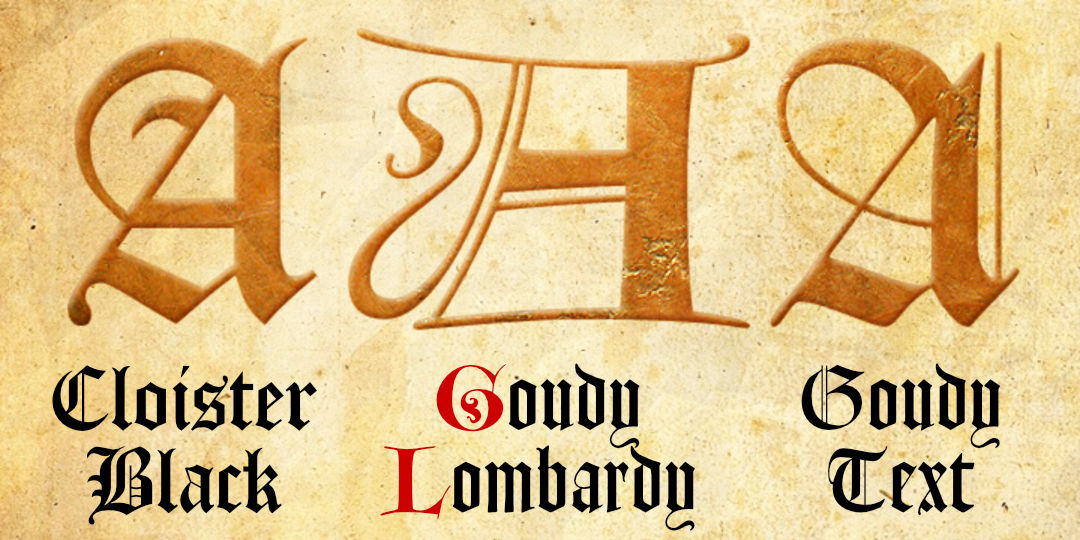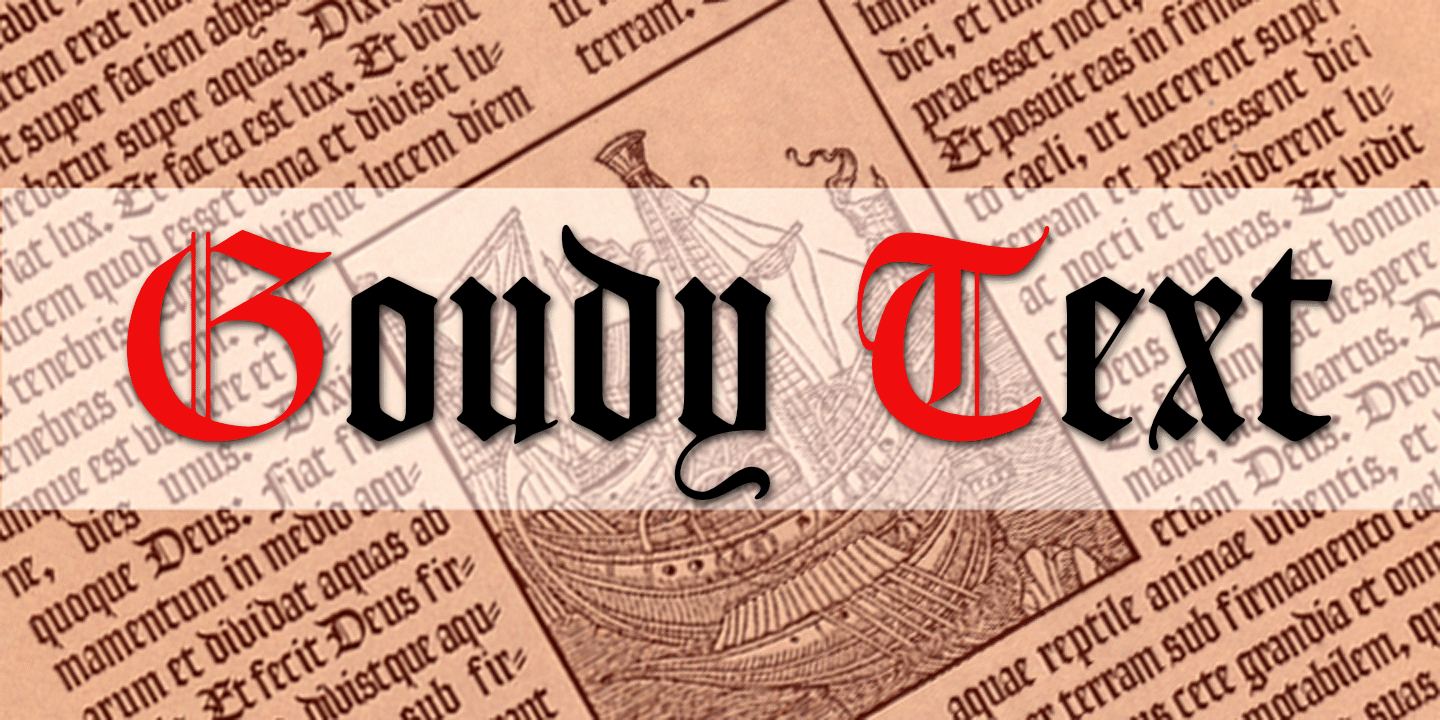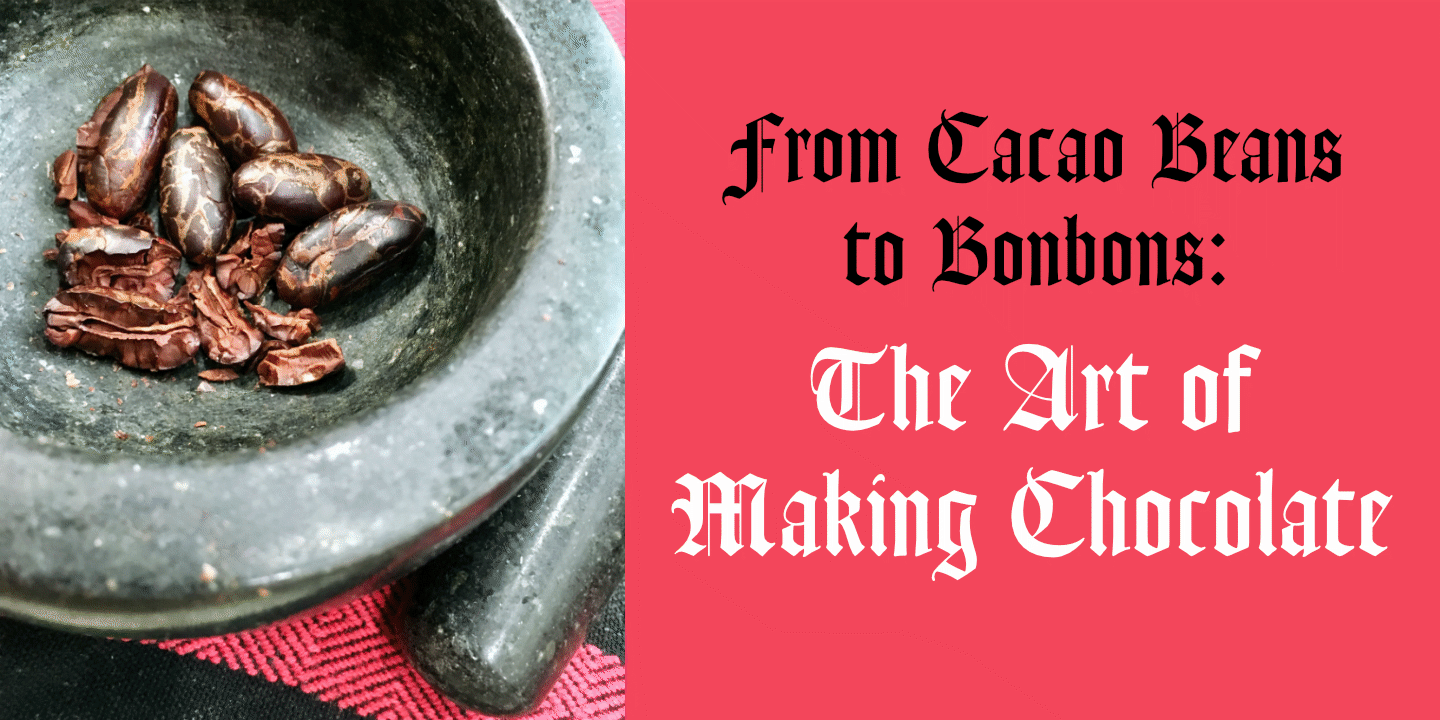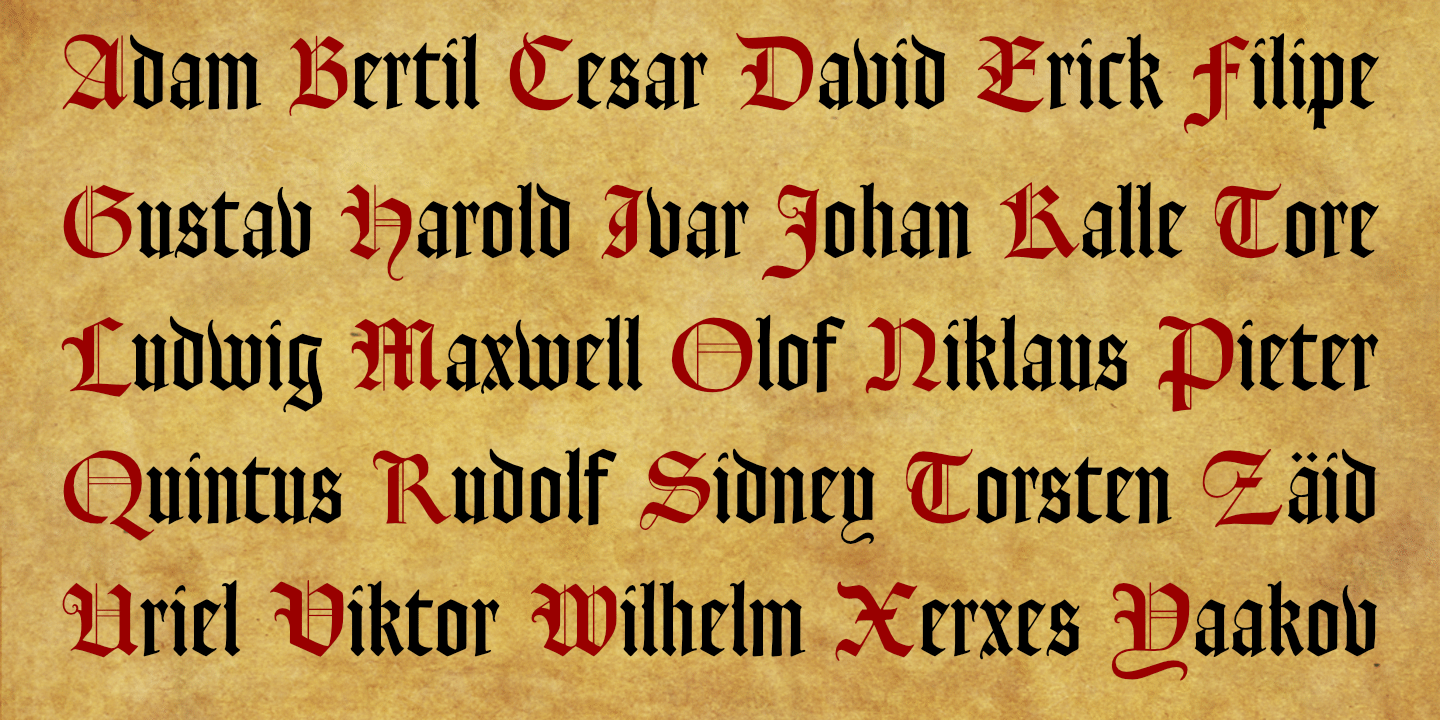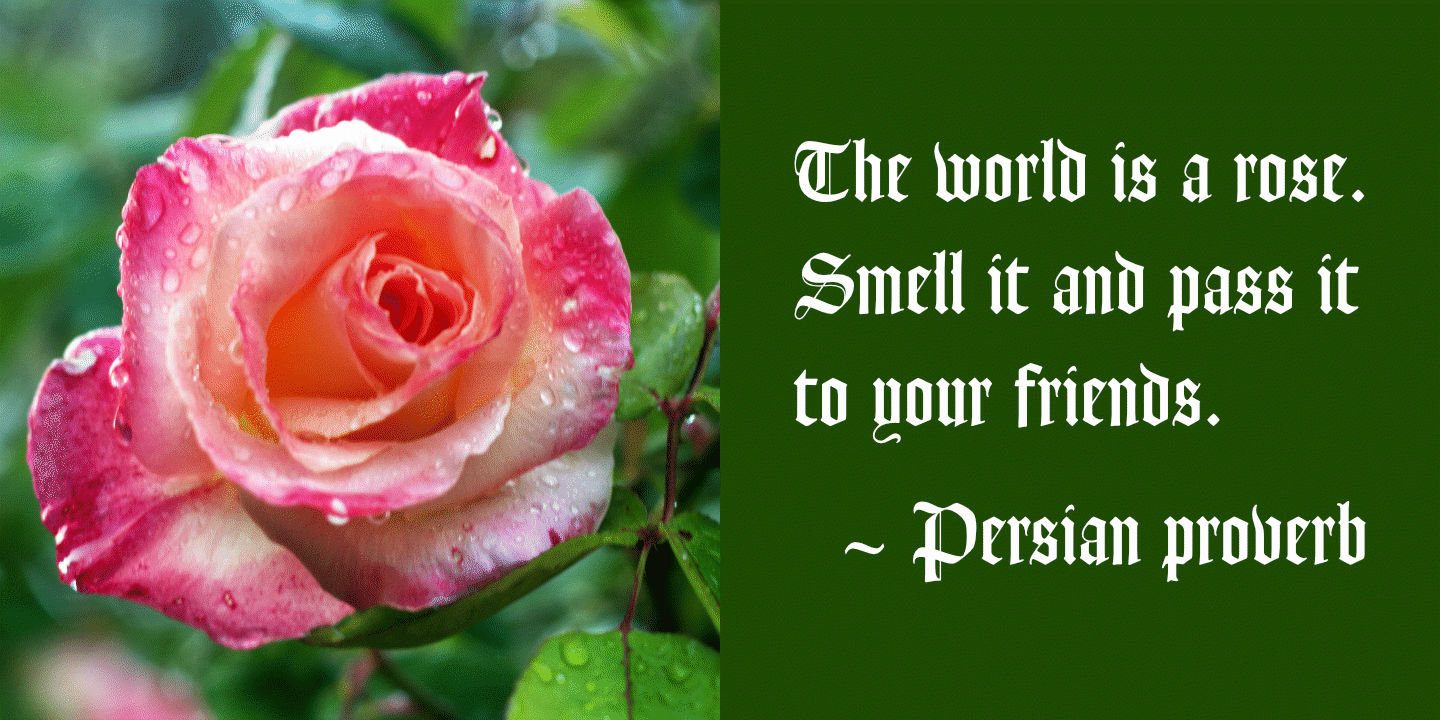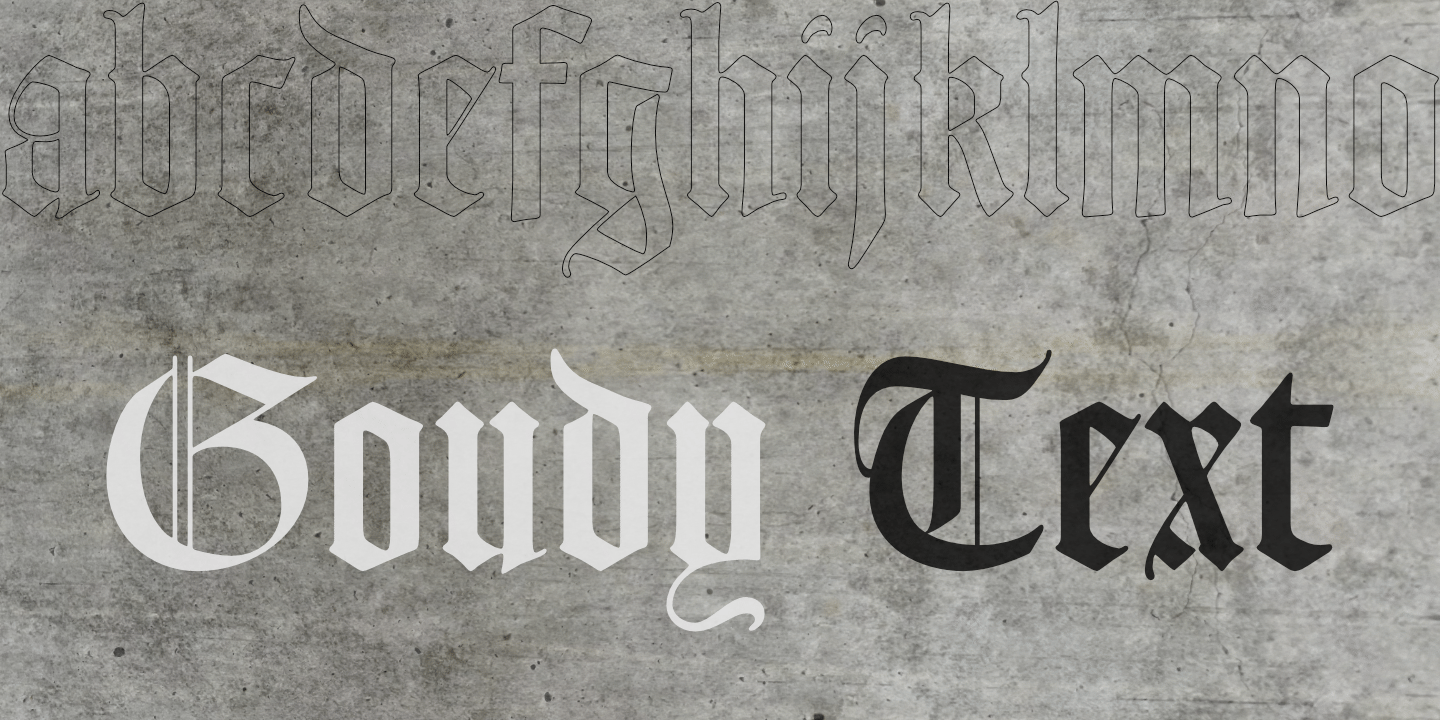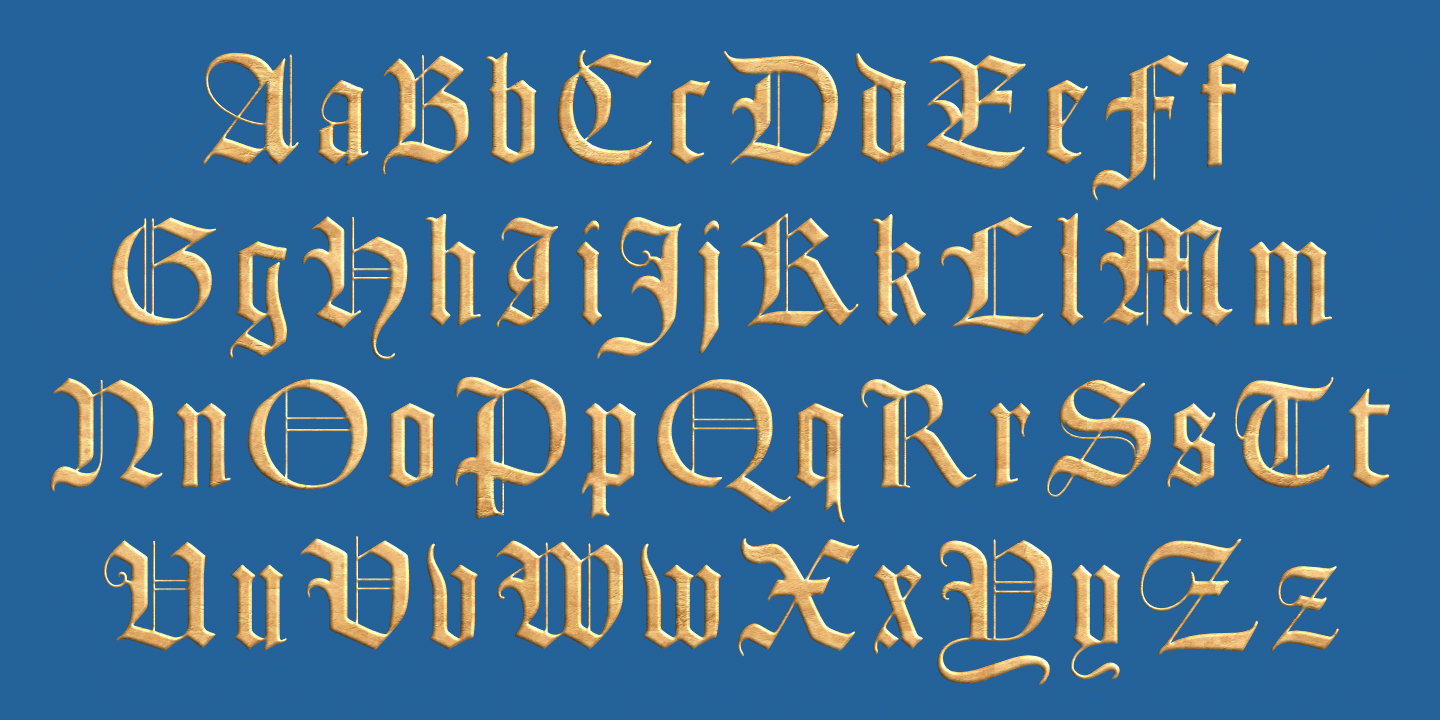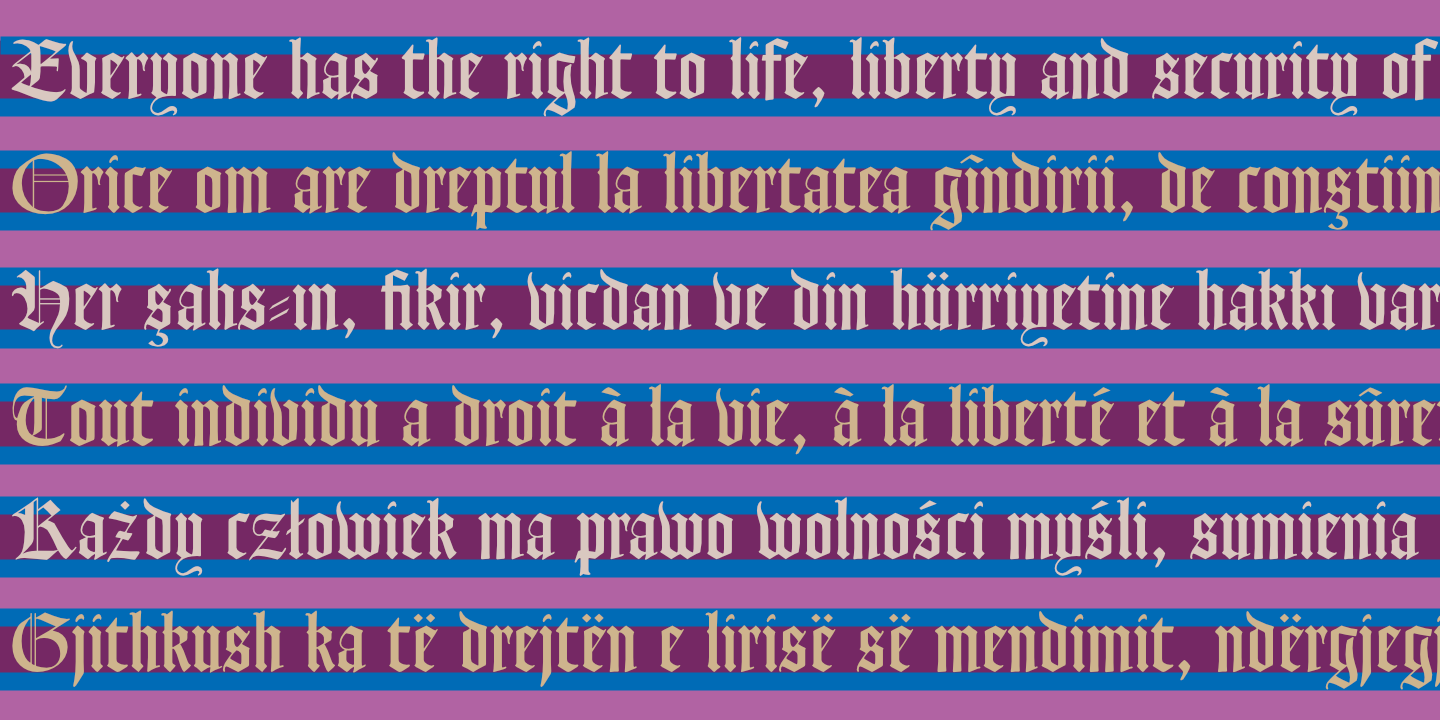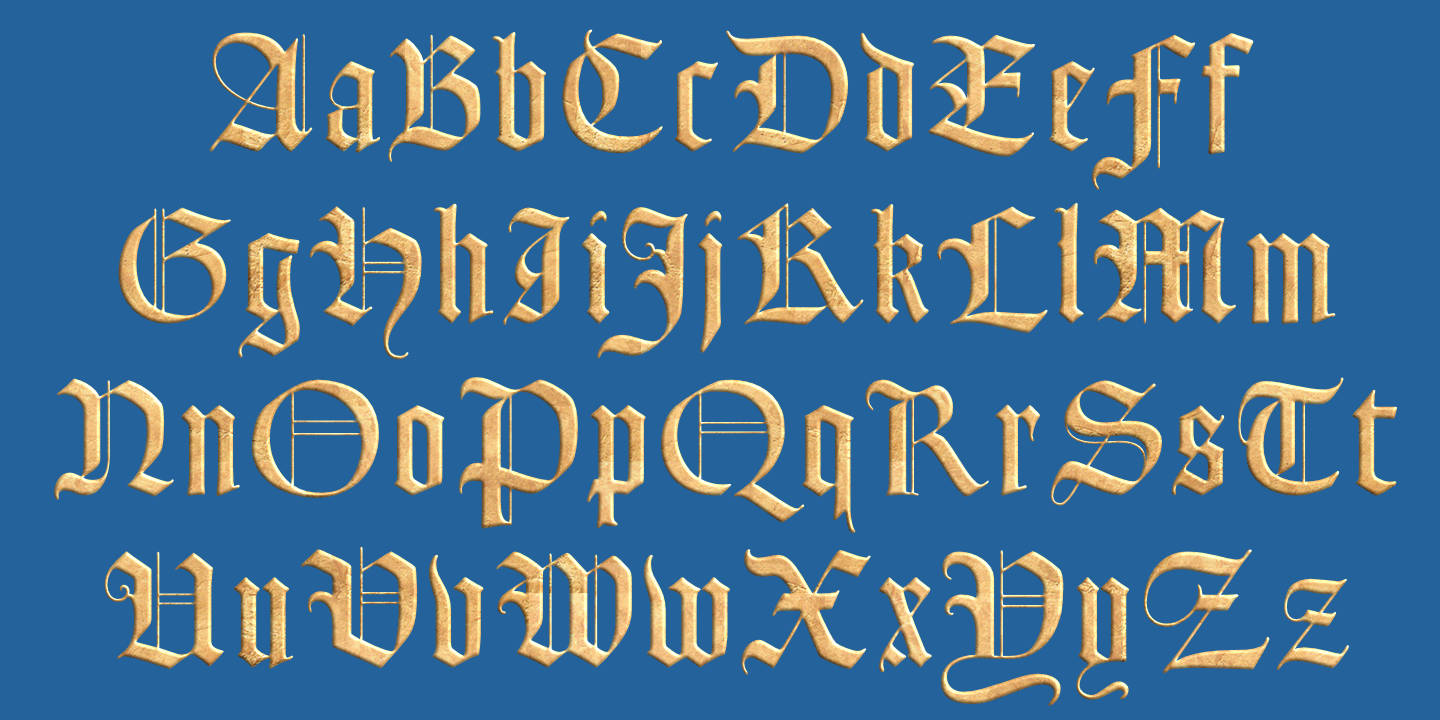
Goudy Text CT: Basic alphabet. blank
Numerals, Punctuation, etc.
Goudy Text CT: Numerals, basic punctuation, currency symbols, and a sampling of ornaments.
Goudy Text CT supports many European languages. See Glyphs for details.
Stacked Text
Notice that light text on a dark background appears slightly heavier than dark text on a light background. blank
Diacritics
Three Blackletters
The CastleType library includes three blackletter typefaces: Cloister Black, Goudy Lombardy and Goudy Text. blank
Goudy Text with ship
Making Chocolate
Names
The world is a rose
Goudy Text on texture